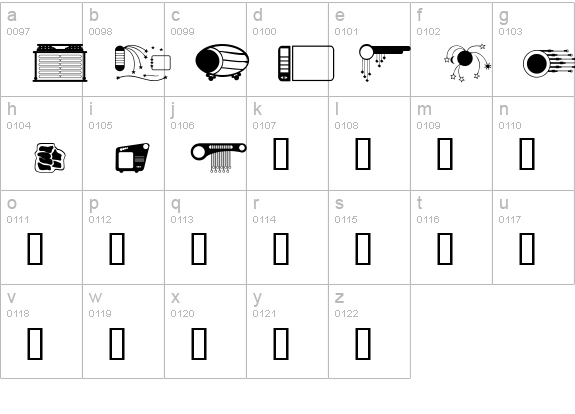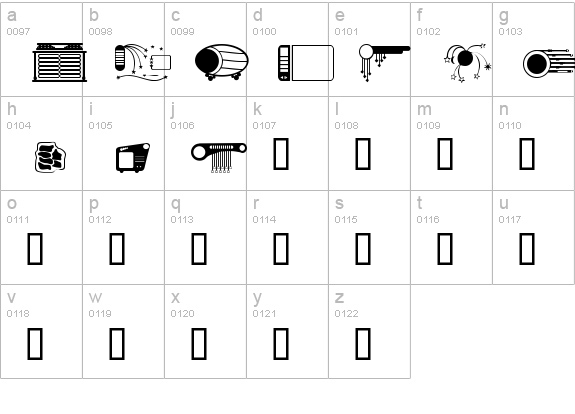
ap_fancynavs Font Details
The ap_fancynavs font is a stylish and elegant typeface that exudes sophistication and creativity. With its intricate details and sleek design, this font is perfect for adding a touch of class to any project. Whether you're designing a logo, poster, or website, ap_fancynavs is sure to make a statement. Best of all, ap_fancynavs is completely free to download at FontsMarket.com. This means you can enhance your designs with this stunning font without breaking the bank. Don't miss out on the opportunity to elevate your projects with the exquisite beauty of ap_fancynavs. Download it today and let your creativity soar!